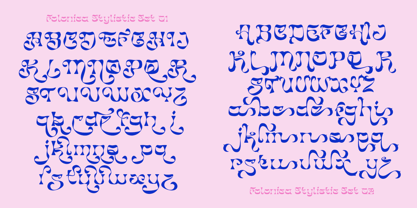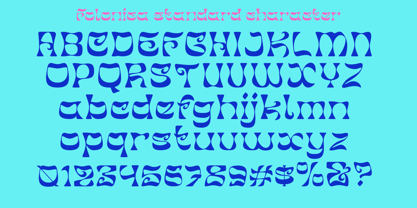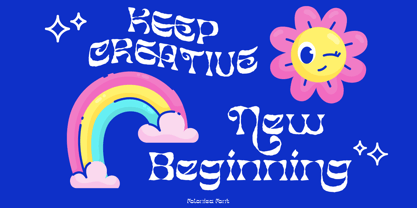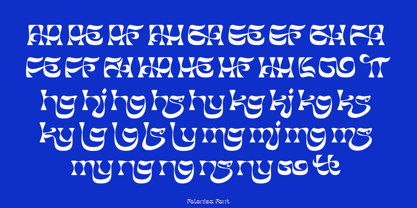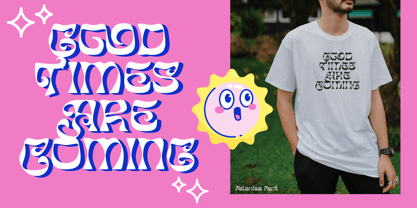
Folonica
by madeDeduk
The Folonica Font Family was designed by madededuk and published by madeDeduk. Folonica contains 2 styles and family package options. More about this family
Folonica is a display font classic, vintage look high contrast that is at home in high-end fashion and cultural environments you can explore and combine. This font is very perfect for many display purposes in your product design if you want to a vintage and classic style. Such as book covers, product labels, logos badges, drink bottles, tattoo shop, coffee shops, fashion products, wedding invitation, etc.